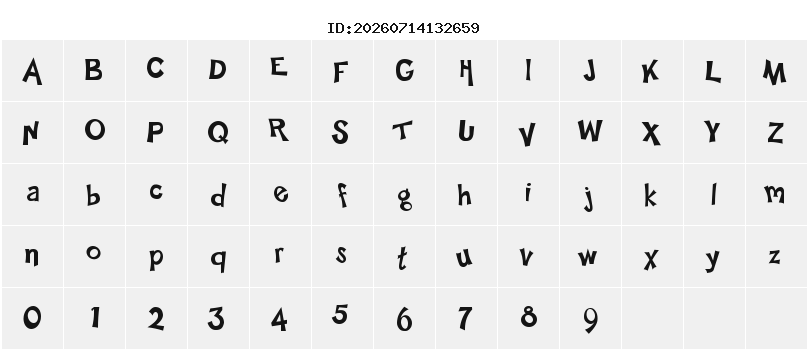
Happy Sans Preview
• Designer: Stephen Knouse
About Happy Sans.ttf
Happy Sans.ttf is a modern, elegant sans-serif font designed for ultimate readability and visual harmony. Perfect for branding, headlines, web design, and print materials.